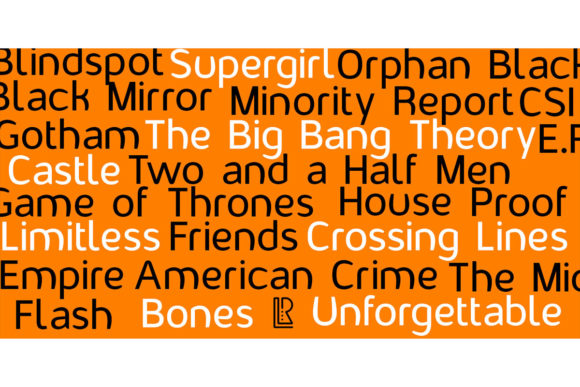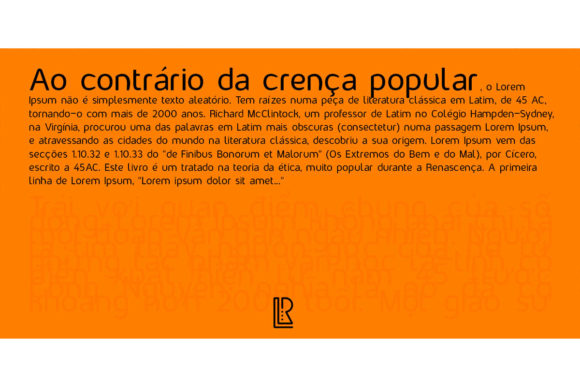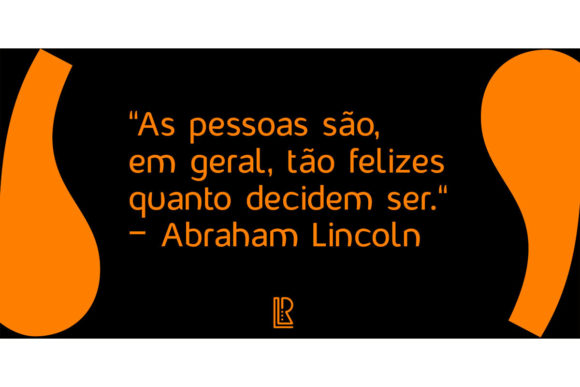
Introduction to Kanellus Font
As designers, we’ve all been there – staring at a blank canvas, waiting for inspiration to strike. For some, it’s the perfect moment to break out the old sketchbook and let creativity flow. But for others, it’s the moment to dig deep into our font library and find the perfect design resource to bring our vision to life. And that’s where the Kanellus Font comes in – a cool and adaptable sans serif font that’s perfect for a wide range of creative projects.
Whether you’re working on a business report, designing a poster, or crafting a multimedia presentation, the Kanellus Font is a valuable addition to any designer’s toolkit. Not only is it high quality, but it’s also free to download, making it an accessible design resource for designers of all levels.
Key Features of Kanellus Font
- High-quality font with a unique, elegant design, perfect for creative projects and designs.
- Includes a range of characters, including uppercase and lowercase letters, numbers, and special characters.
Honest Review: Kanellus Font
I recently had the chance to work with the Kanellus Font, and I must say, it’s been a great addition to my design resources. This high-quality font is perfect for any creative project that requires a unique touch.
What works well: ✨ The Kanellus Font is incredibly versatile, making it suitable for a wide range of designs, from logos and branding materials to posters and flyers. Its elegant and modern design aesthetic makes it a great choice for any project that needs to make a statement.
However, I did encounter some limitations: ⚠️ The Kanellus Font is only available in a limited range of weights and styles, which might limit its use in more complex designs. Additionally, the font’s license terms are a bit restrictive, so be sure to check those before using it for commercial projects.
Overall, I’m impressed with the Kanellus Font’s quality and versatility. It’s a great addition to any designer’s toolkit, and I’d definitely recommend it to anyone looking for a unique and high-quality font for their creative project.
Tips for Getting the Most Out of Kanellus Font
For the best results, use the Kanellus Font in a creative project where you want to add a touch of elegance and sophistication. Experiment with different font sizes, colors, and combinations to create a unique look. You can also use the font in conjunction with other design resources to add depth and visual interest to your project.
The Kanellus Font is perfect for use in wedding invitations, business cards, and other formal documents. It’s also great for use in digital design projects, such as social media graphics and website headers. With its high-quality design and transparent background, the Kanellus Font is a valuable design resource for any creative project.